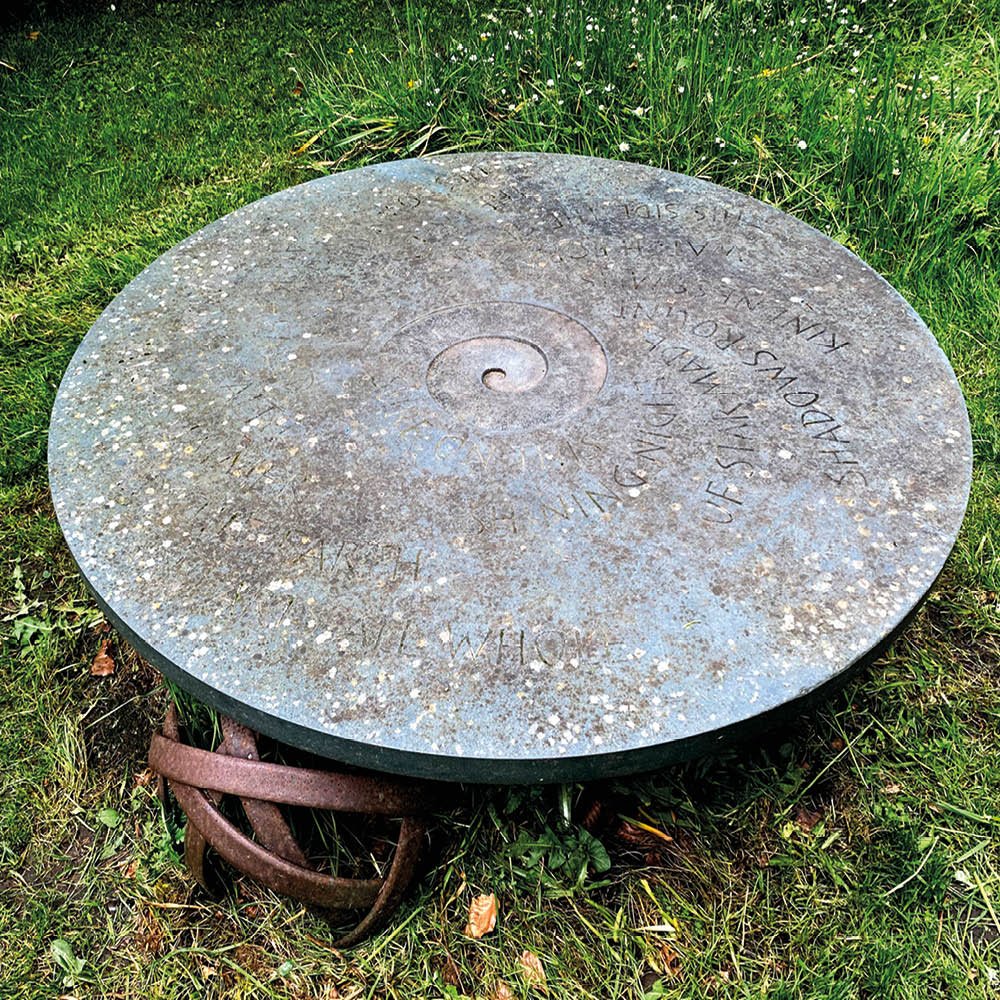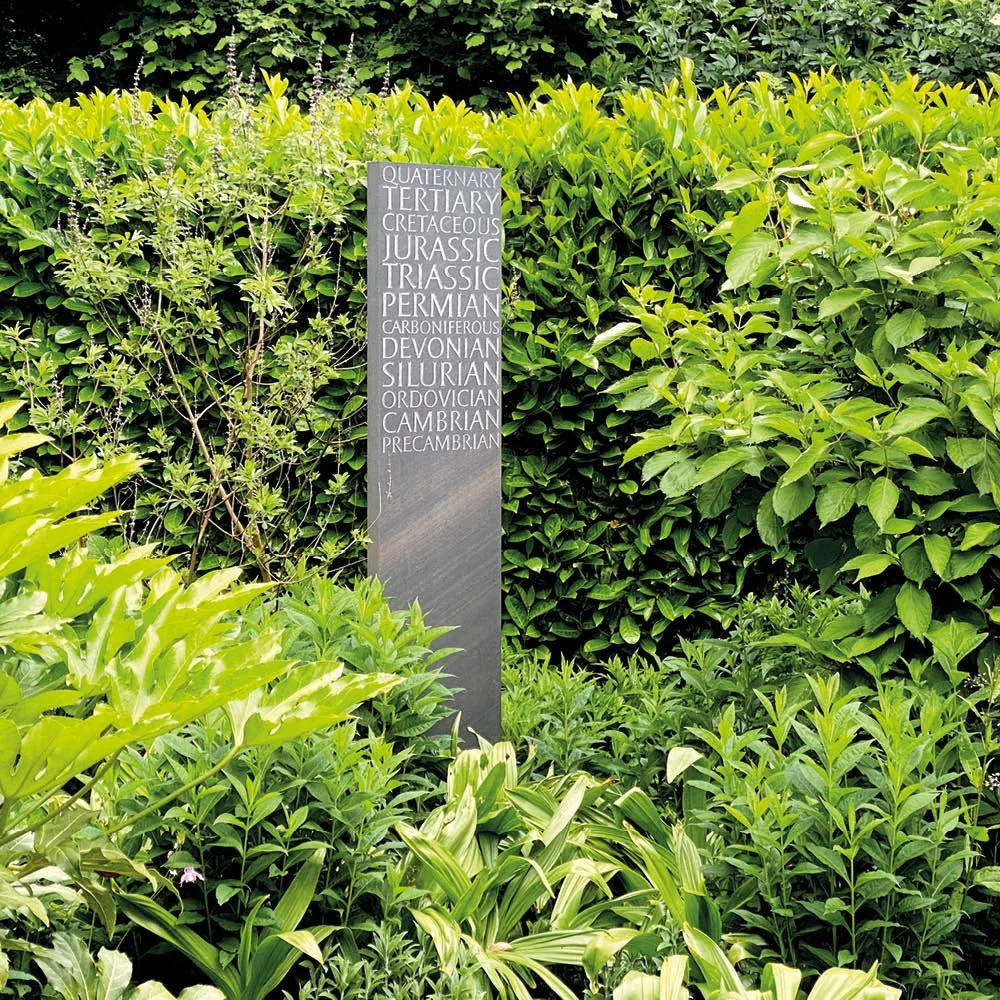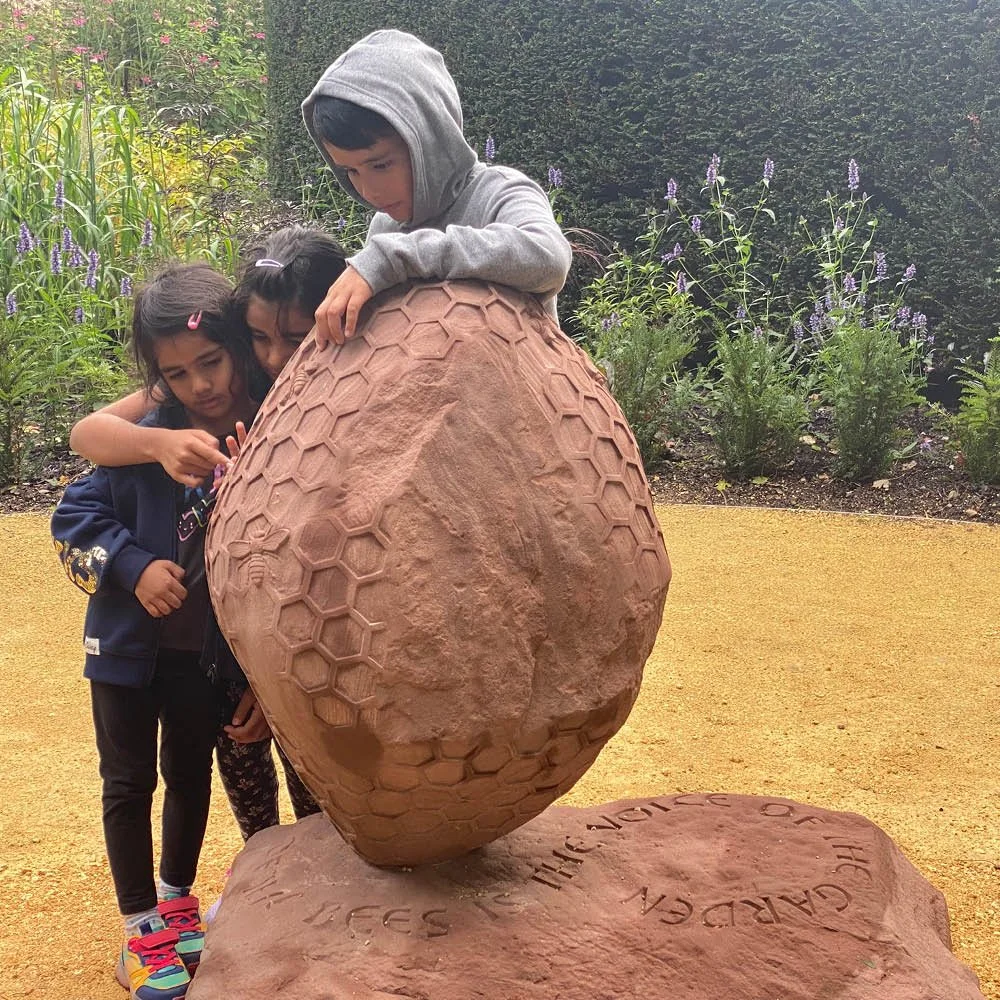
Winterbourne House, Birmingham
The gardens of Winterbourne House are home to six works from our Art & Memory Collection including the most recent addition A Fragile Balance, unveiled in 2024.
As with all the works in our collection, they have a memorial theme, created without client or churchyard restrictions. Carved by some of the UK’s foremost lettering artists, these show the range and possibilities of contemporary letter carving.